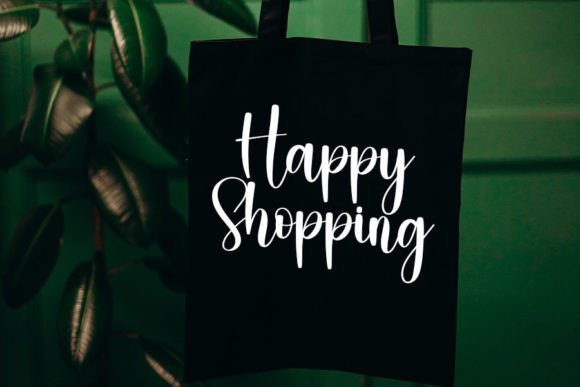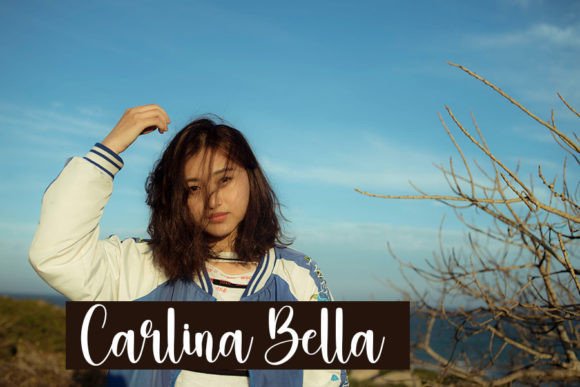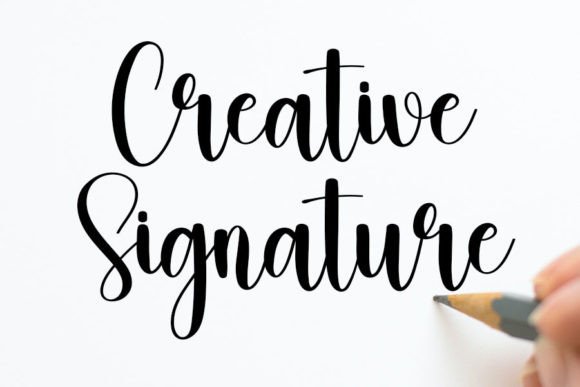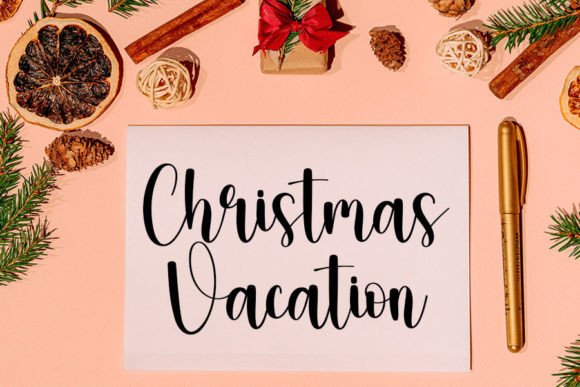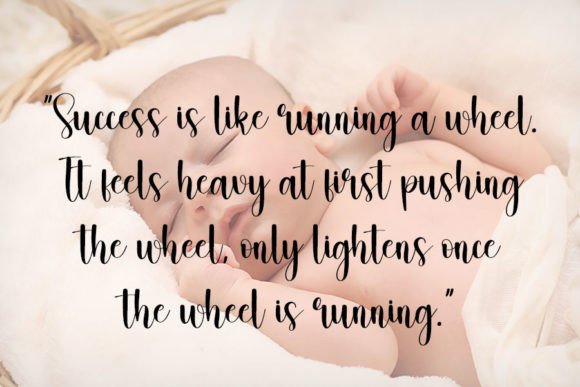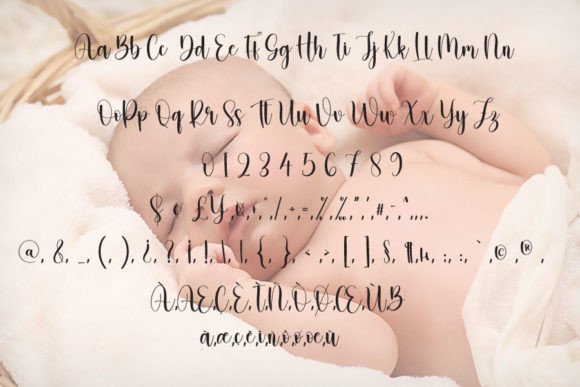
Babe Font: The Simple and Friendly Handwritten Font for All Occasions
Are you tired of using the same old fonts for your crafts, digital designs, and presentations? Look no further than Babe Font, a simple and friendly handwritten font that’s perfect for any occasion. In this article, we’ll explore the features and benefits of Babe Font, and why it’s becoming a favorite among designers and crafters.
What is Babe Font?
Babe Font is a modern handwritten font that’s designed to be versatile and easy to use. Its simple and clean lines make it perfect for a wide range of applications, from digital design and presentations to crafting and making greeting cards. The font’s friendly and approachable feel makes it ideal for projects that require a personal touch.
Features of Babe Font
So, what makes Babe Font so special? Here are some of its key features:
- Simple and clean lines: Babe Font has a straightforward and uncomplicated design that’s easy on the eyes.
- Handwritten feel: The font has a warm and personal feel that’s perfect for projects that require a human touch.
- Versatile: Babe Font can be used for a wide range of applications, from digital design and presentations to crafting and making greeting cards.
- Easy to read: The font is clear and easy to read, making it perfect for body text and headings.
Benefits of Using Babe Font
So, why should you use Babe Font for your next project? Here are some of the benefits of using this amazing font:
- Adds a personal touch: Babe Font’s handwritten feel adds a personal touch to any project, making it perfect for crafts, greeting cards, and other personal projects.
- Easy to use: The font is simple and easy to use, making it perfect for designers and crafters of all skill levels.
- Versatile: Babe Font can be used for a wide range of applications, from digital design and presentations to crafting and making greeting cards.
Using Babe Font for Digital Design
Babe Font is perfect for digital design projects, such as social media graphics, blog posts, and website headers. Its clean and simple lines make it easy to read on digital devices, and its friendly feel makes it perfect for engaging with your audience.
Here are some tips for using Babe Font in digital design:
- Use it for headings and titles: Babe Font is perfect for headings and titles, as it’s clear and easy to read.
- Pair it with other fonts: Babe Font can be paired with other fonts to create a unique and interesting look.
- Use it for body text: Babe Font is also suitable for body text, as it’s easy to read and has a friendly feel.
Using Babe Font for Crafts and Greeting Cards
Babe Font is also perfect for crafts and making greeting cards. Its handwritten feel makes it perfect for adding a personal touch to your projects, and its simple and clean lines make it easy to read.
Here are some tips for using Babe Font in crafts and greeting cards:
- Use it for titles and headings: Babe Font is perfect for titles and headings, as it’s clear and easy to read.
- Add a personal touch: Babe Font’s handwritten feel makes it perfect for adding a personal touch to your projects.
- Experiment with different colors: Babe Font can be used with a variety of colors and ink combinations to create a unique and interesting look.
| Author | Ganden Letter |
In conclusion, Babe Font is a simple and friendly handwritten font that’s perfect for any occasion. Its clean and simple lines make it easy to read, and its friendly feel makes it perfect for adding a personal touch to your projects. Whether you’re a designer, crafter, or just someone who loves to make greeting cards, Babe Font is a great choice.
So why not give Babe Font a try? With its versatility, ease of use, and friendly feel, it’s sure to become your go-to font for all your design and crafting needs.